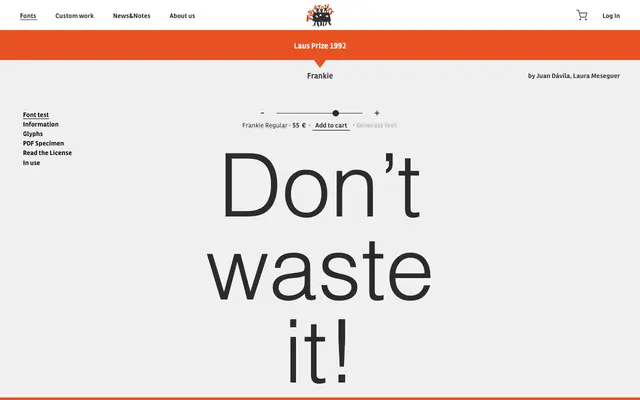
Frankie
Type-ø-tones · Juan Dávila, Laura Meseguer · 1992
A single-weight display face by Juan Dávila and Laura Meseguer, winner of the Laus Prize in 1992.
Designed by Juan Dávila and Laura Meseguer and recognised with a Laus Prize in 1992, Frankie is a display typeface from the early Spanish digital type scene. It is offered as a single style, Regular 55, through Type-ø-tones. The slogan 'Don't waste it!' on the product page hints at its expressive, irreverent character.
The Laus Prize 1992 date and single-weight 'Regular 55' offering suggest a display face from the early 1990s Spanish type scene, designed for expressive rather than text use.